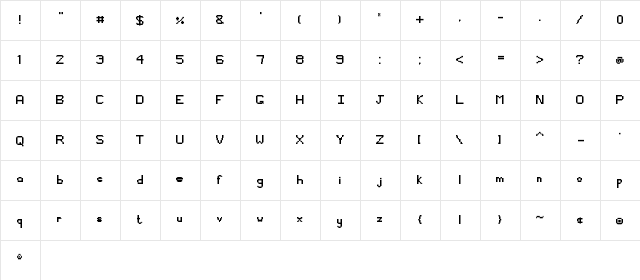
Manny Regular Regular
| Designer | Anthony Dyer |
Design Context for Manny Regular Typeface
Manny Regular is a composed and adaptable typeface that performs quietly and consistently across a wide range of design contexts.